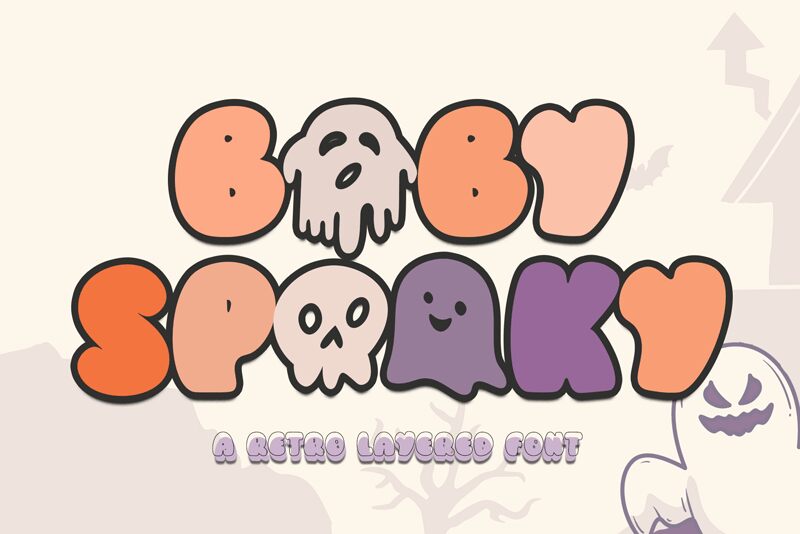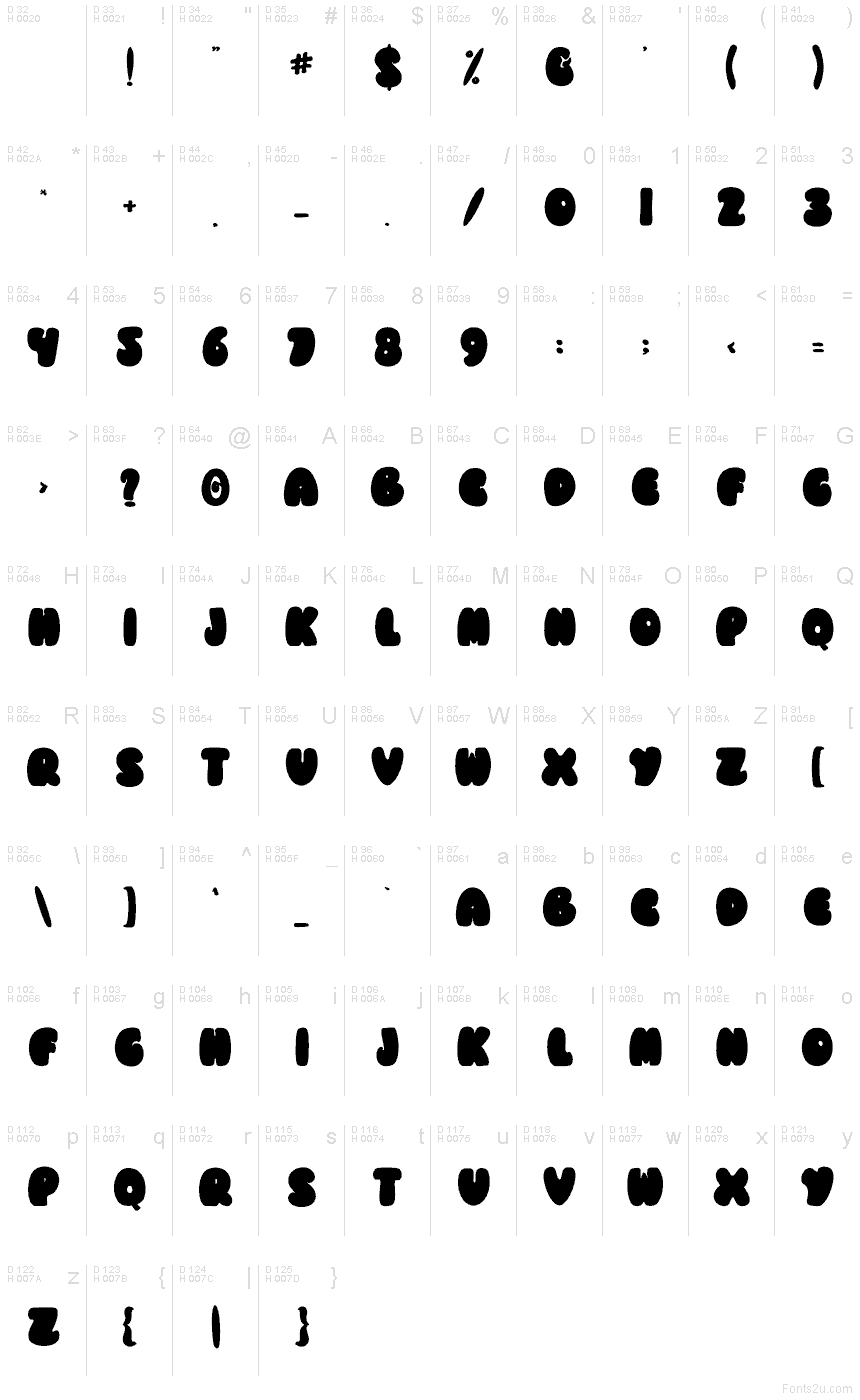
Baby Spooky
Baby Spooky font by Creatype Designer is a free Halloween display font. Built for fun-size frights, its plump, bubble-like letters wobble with rounded edges and tiny cut-out “sparkles,” landing somewhere between gooey slime and candy corn. The heavy shapes read fast at a glance, while the soft curves keep the mood playful rather than gruesome—perfect when you want spooky without the screams.
Using Baby Spooky, your seasonal graphics pop on trick-or-treat bags, party invitations, classroom crafts, stickers, YouTube thumbnails, and mobile game titles. This free font thrives big and chunky; add a touch of tracking for air and pair with a clean rounded sans for captions.